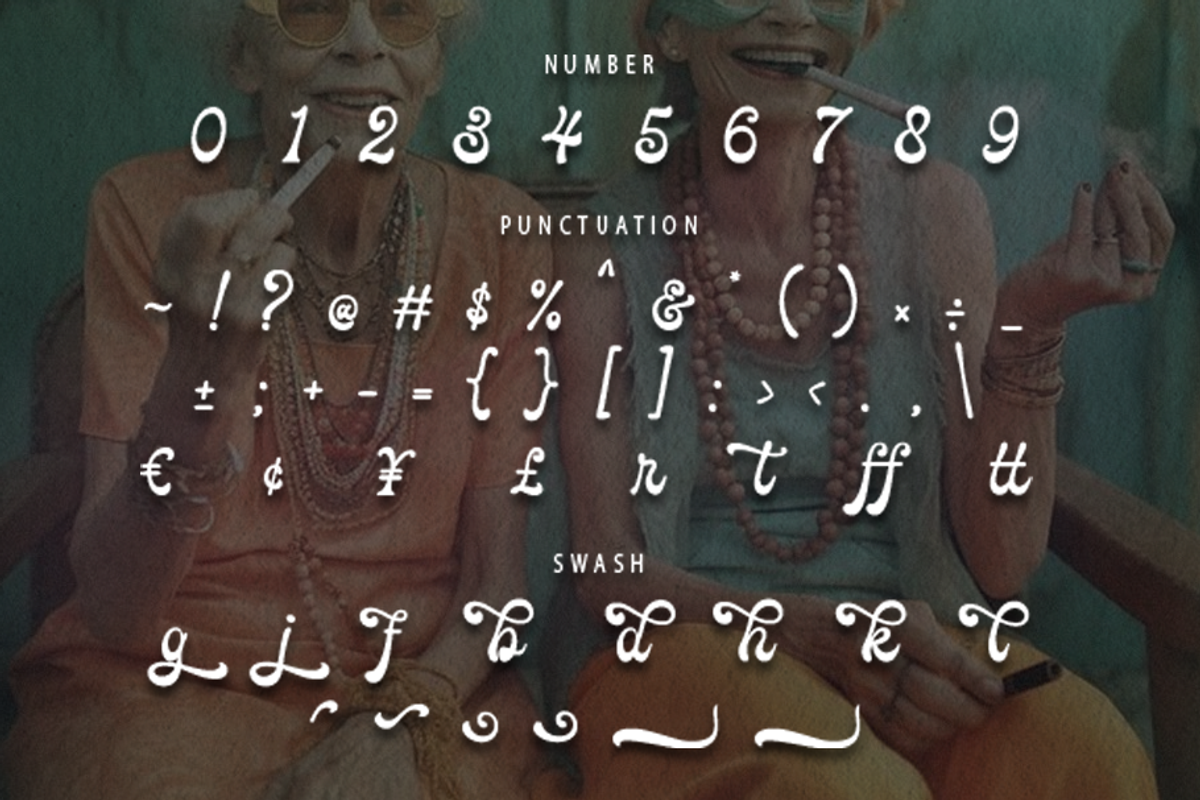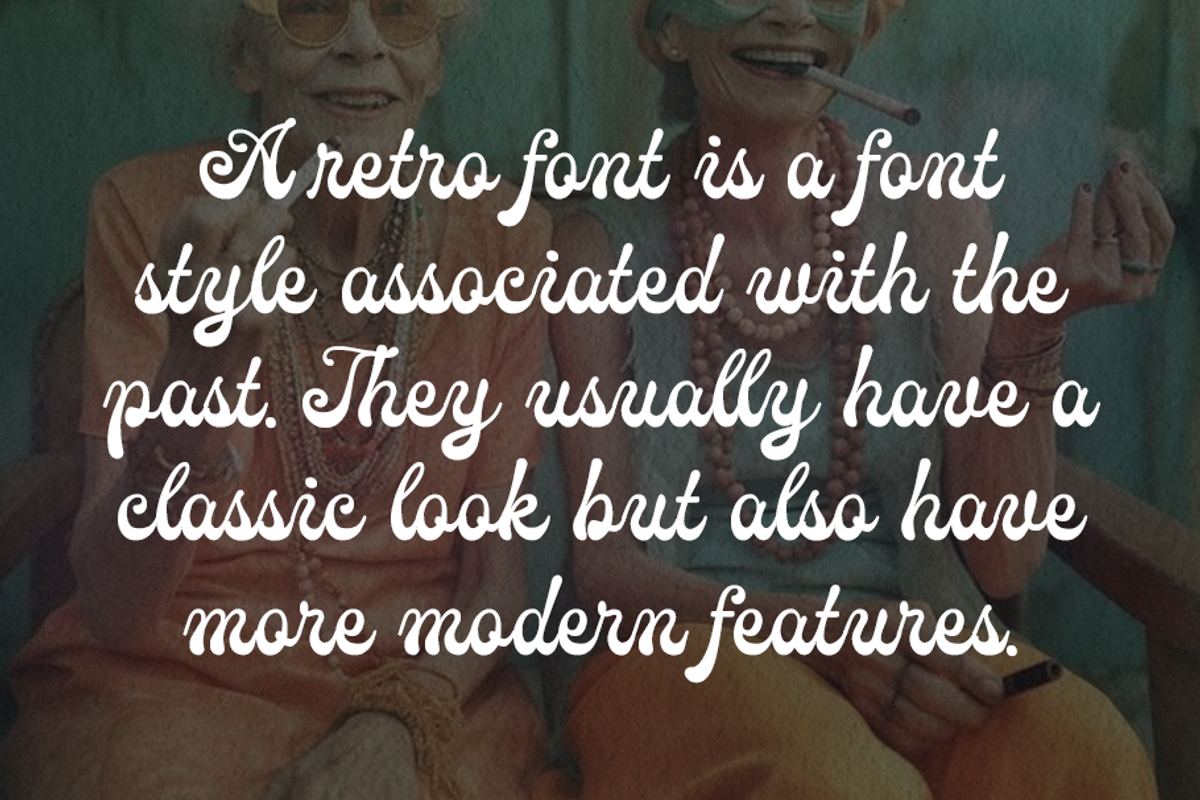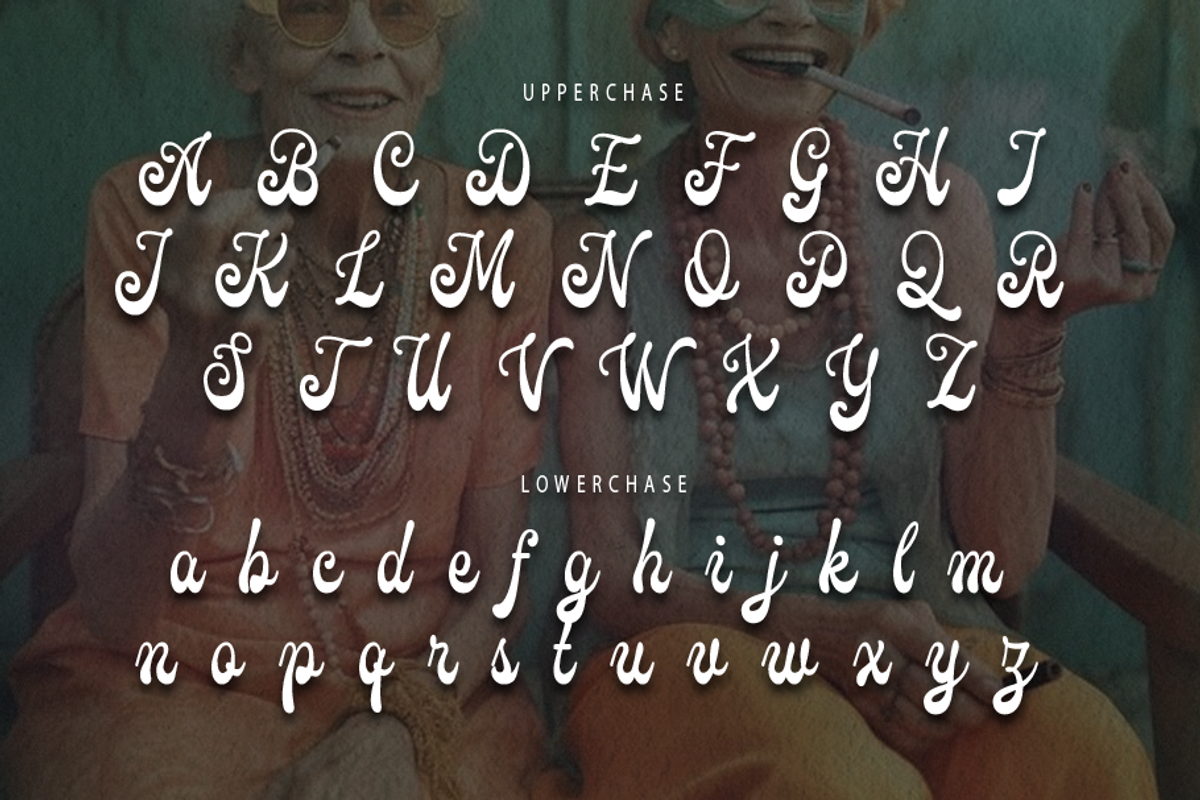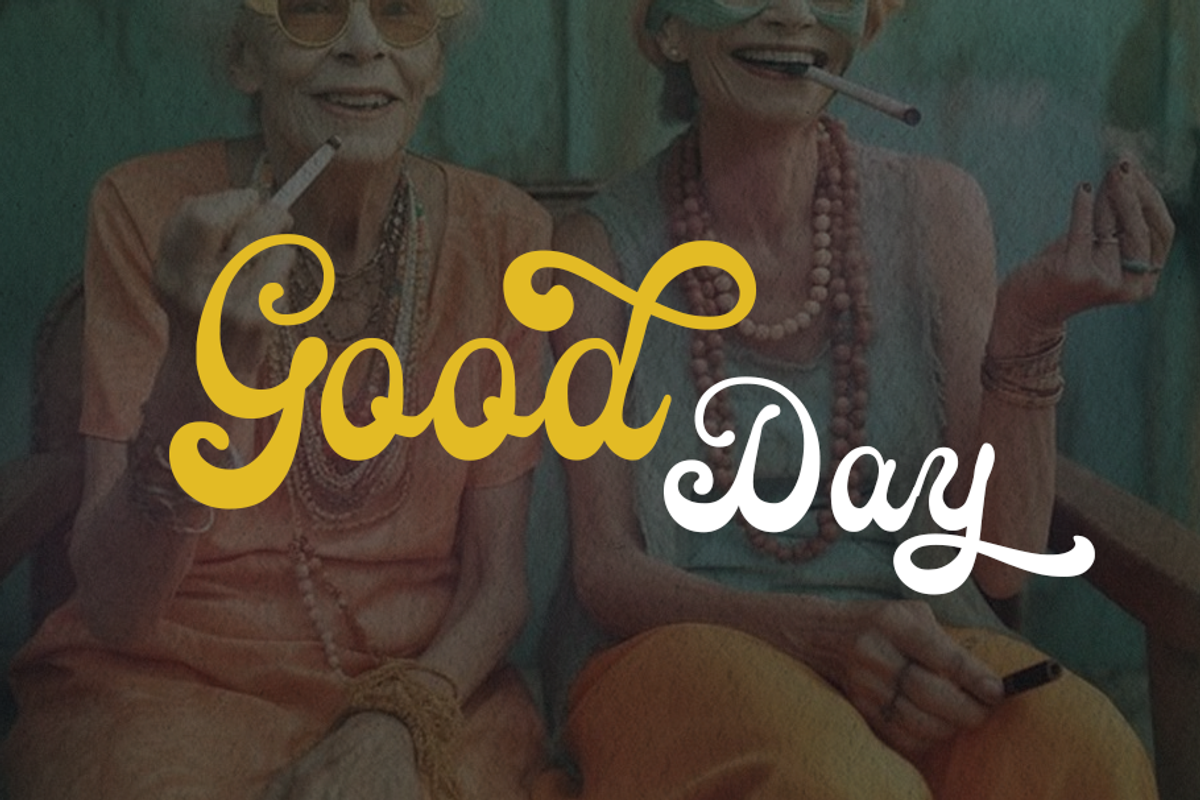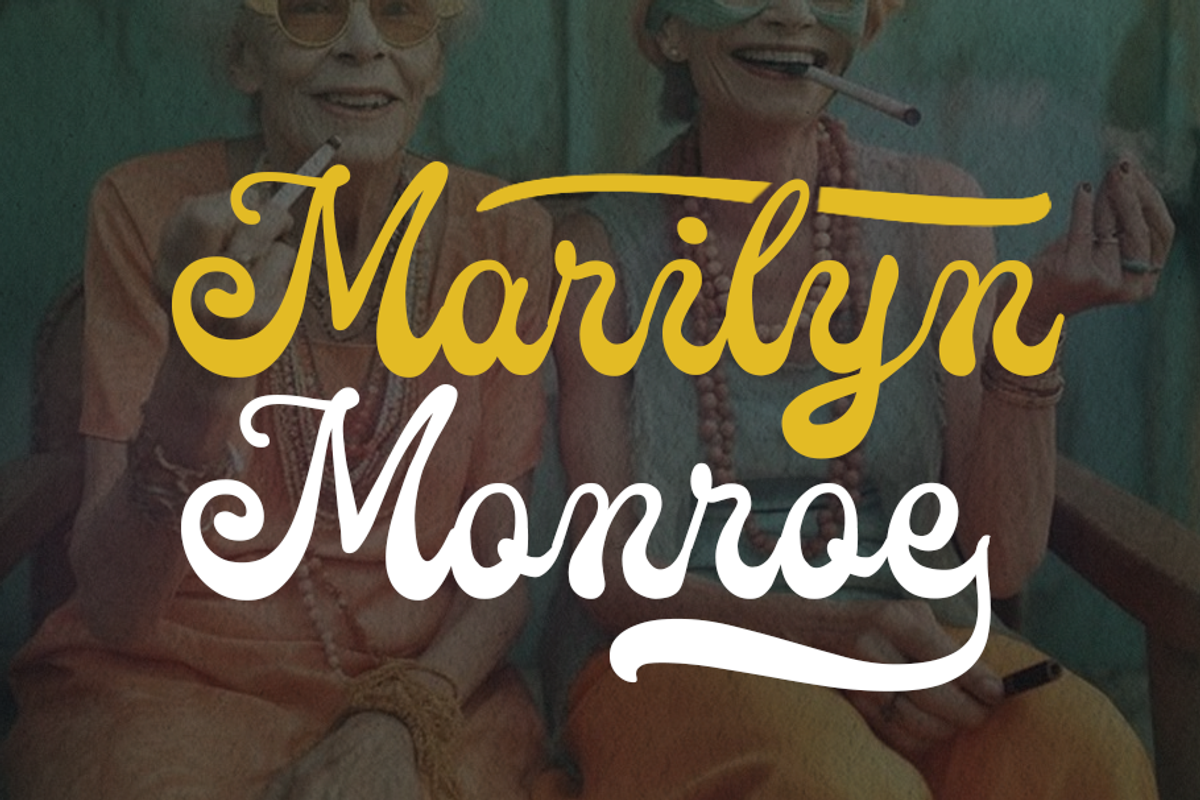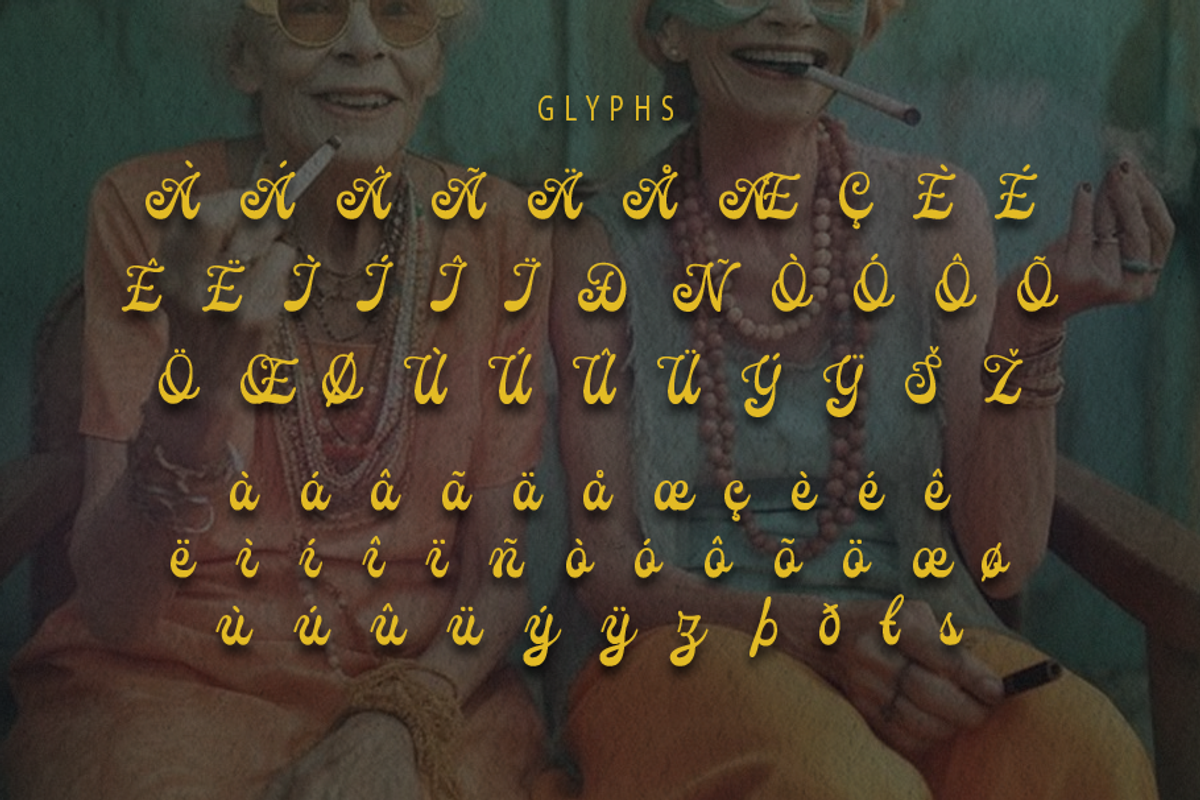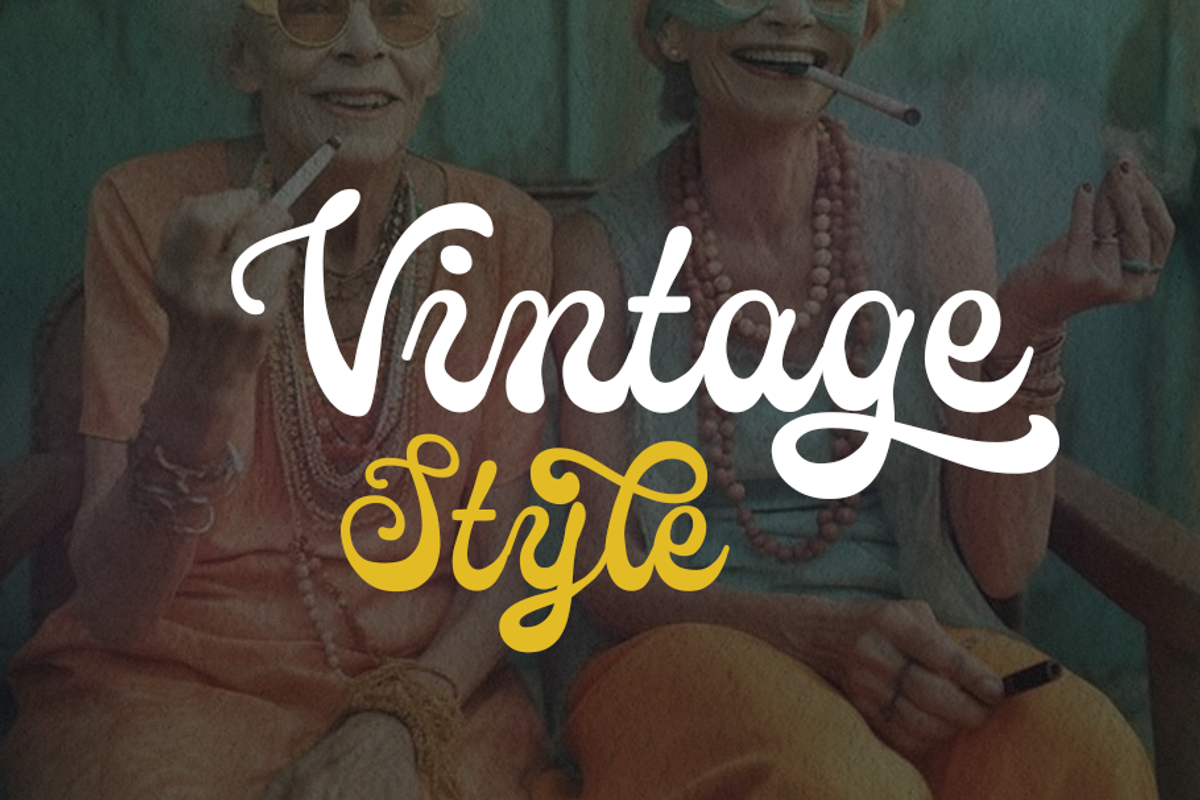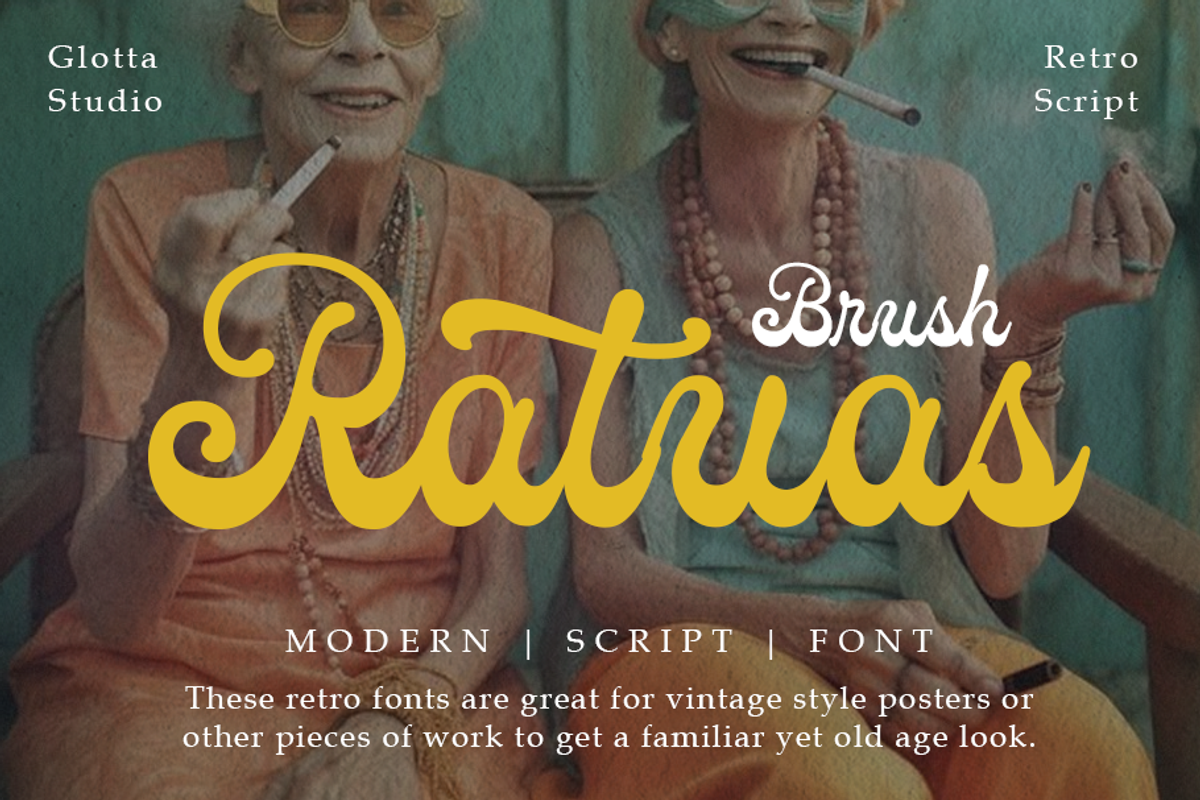
Ratuas
Ratuas is handwritten font it’s looks funny, fancy, girly and easy to use. Ratuas is the great choice for watermark on movie industry, poster design, quotes, story books, and many other design project. Ratuas is here to make your work or your business to high level!!! Features
- Numerals and Functional
- General Punctuation
- Currency Symbols